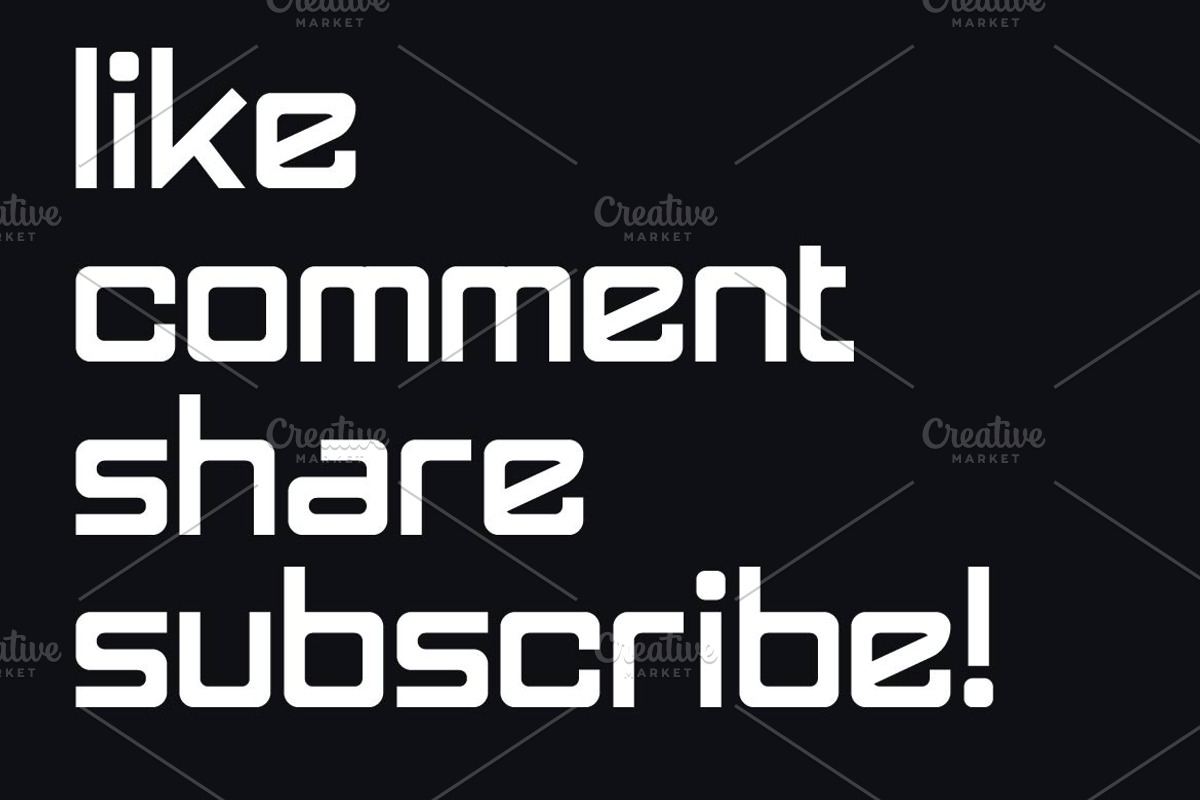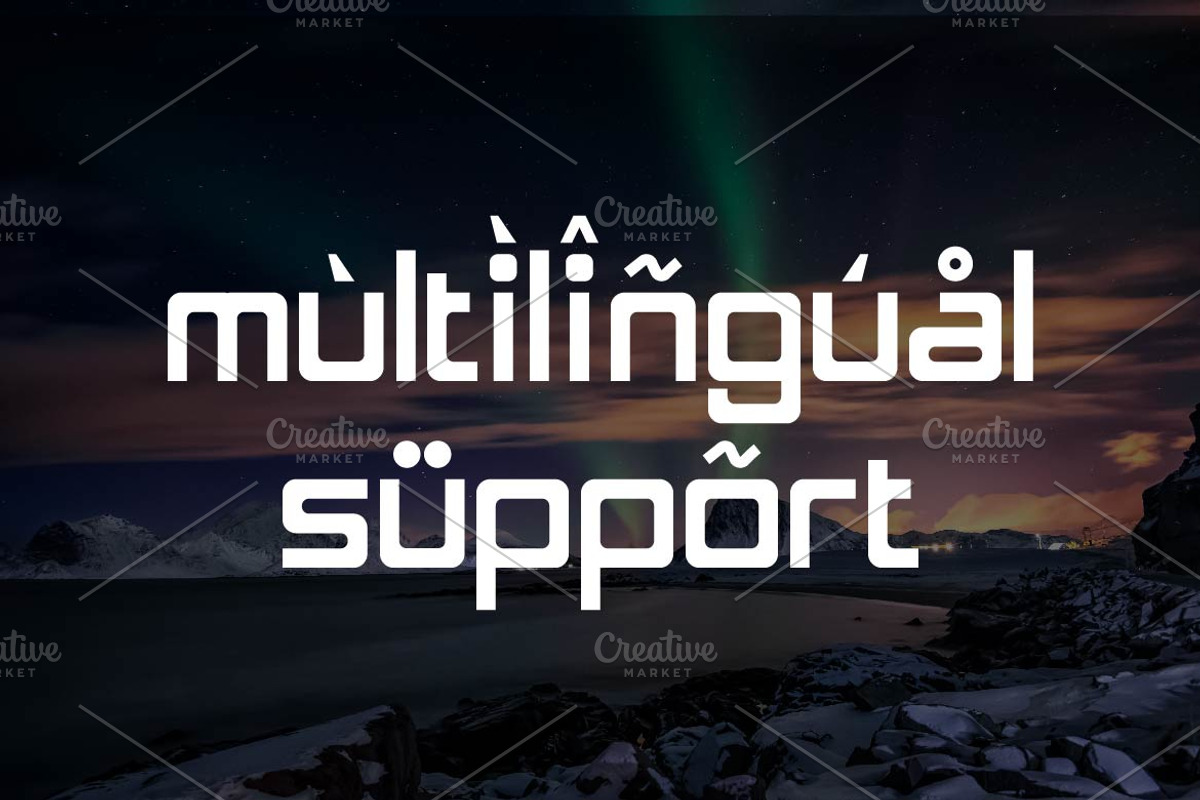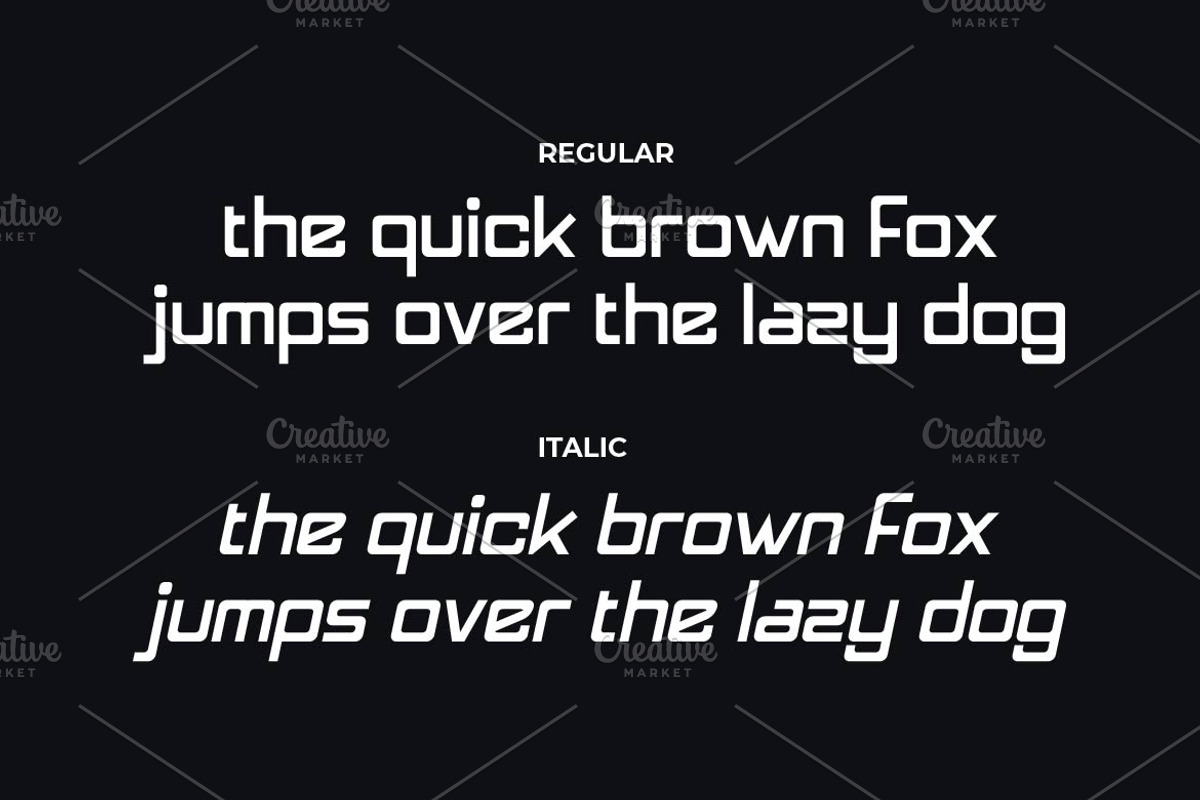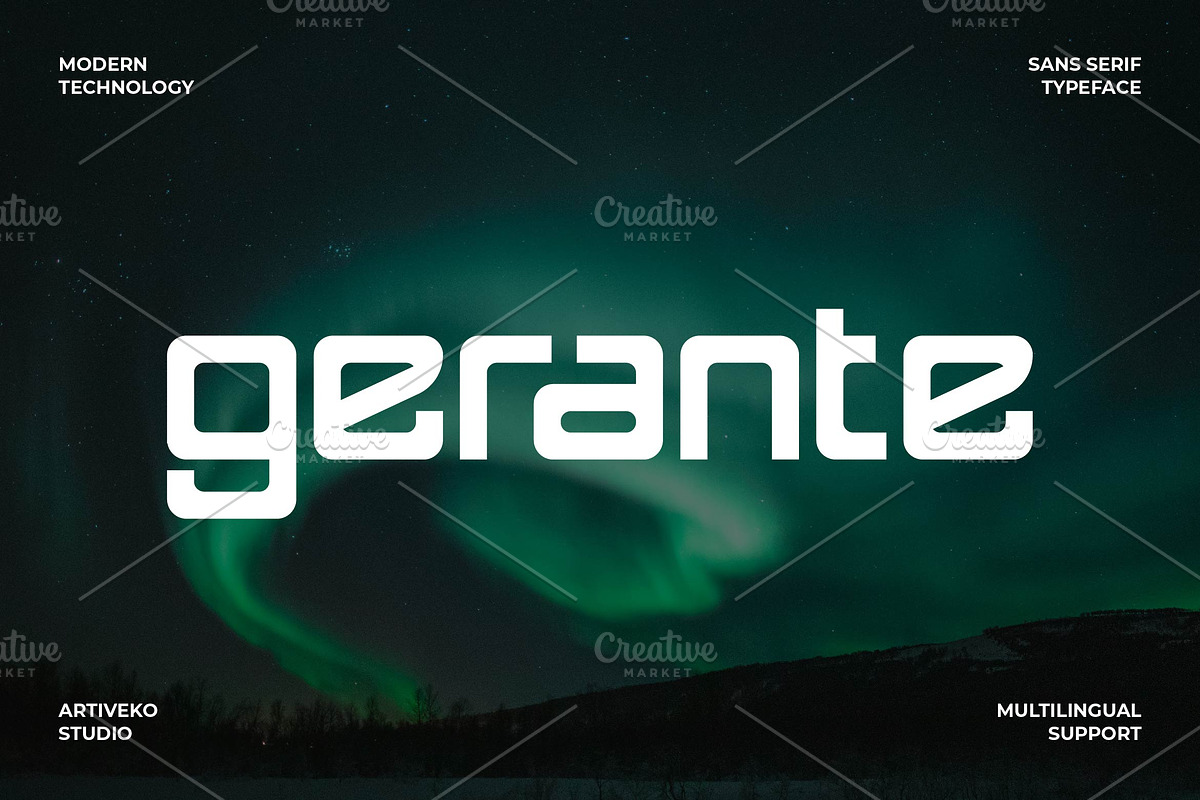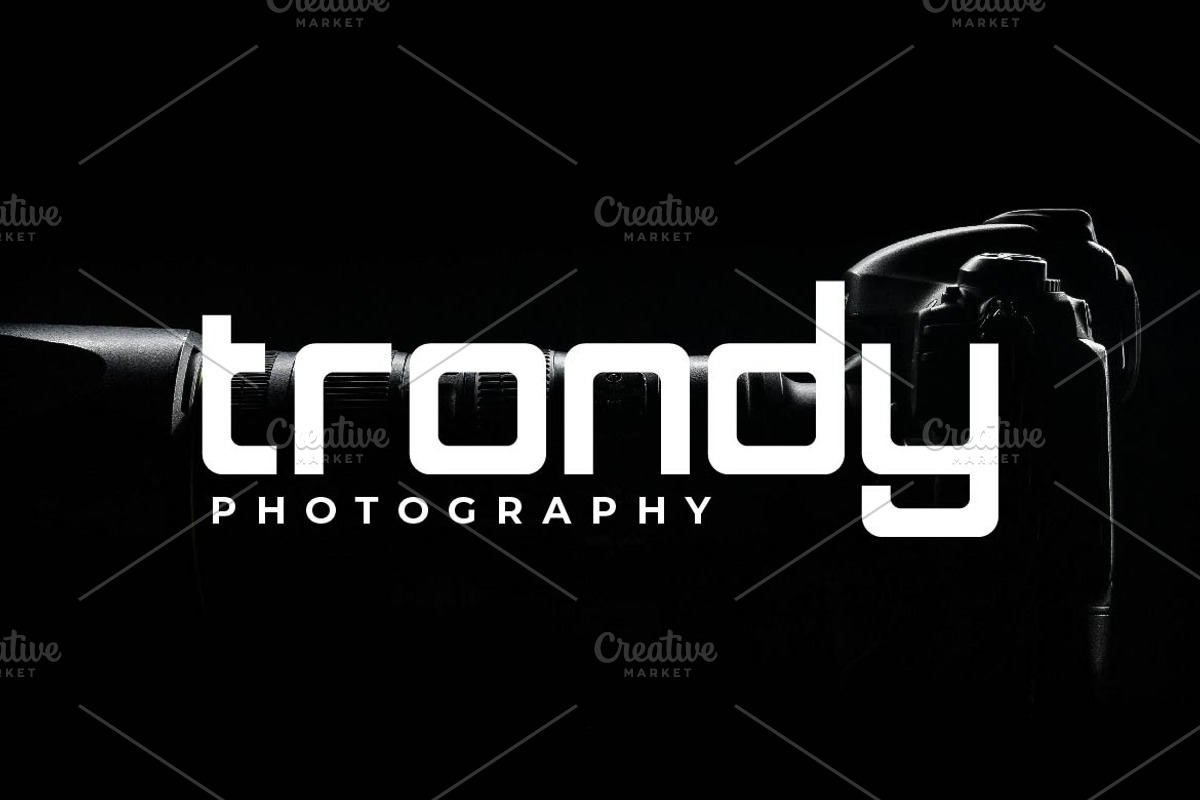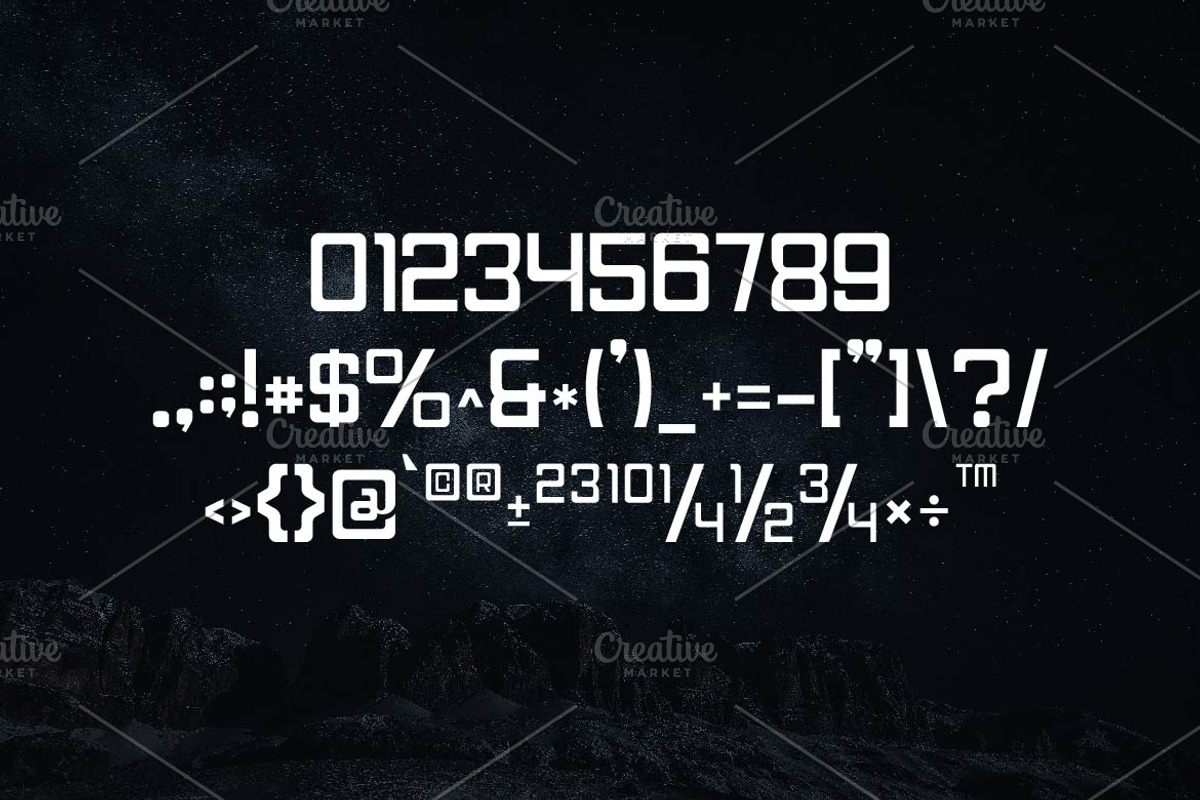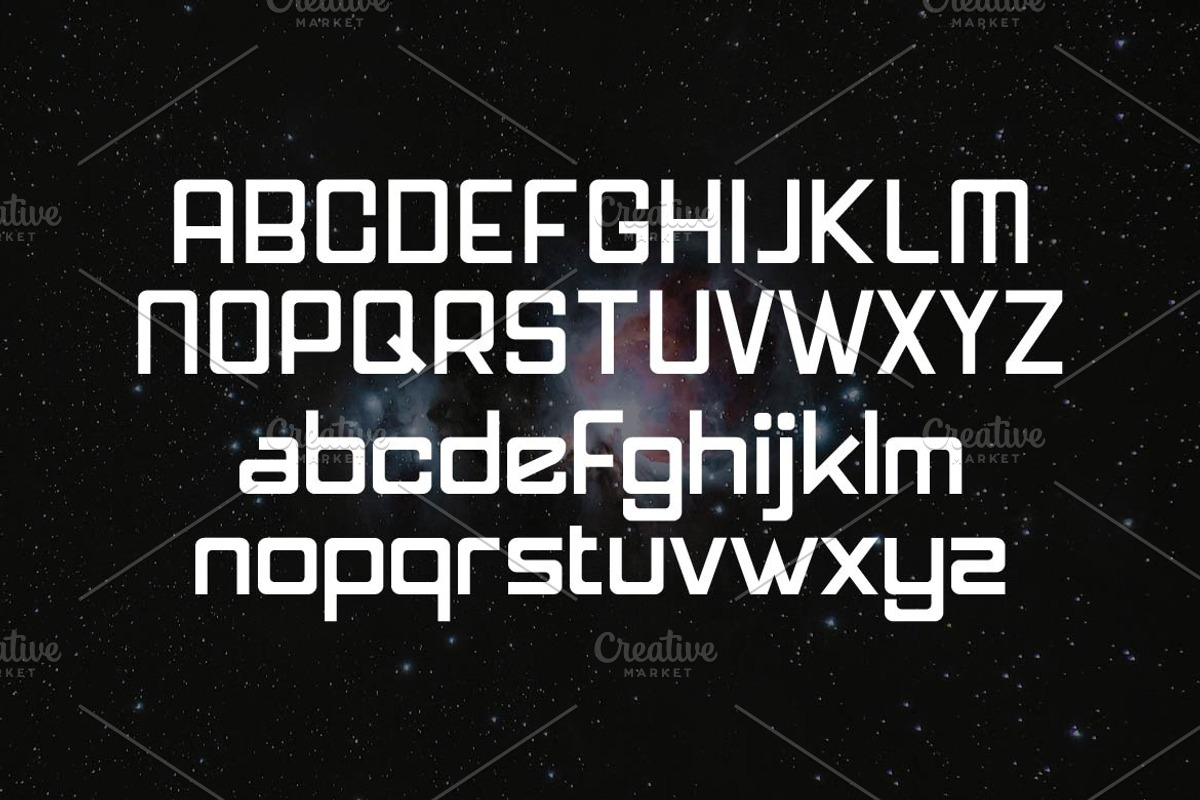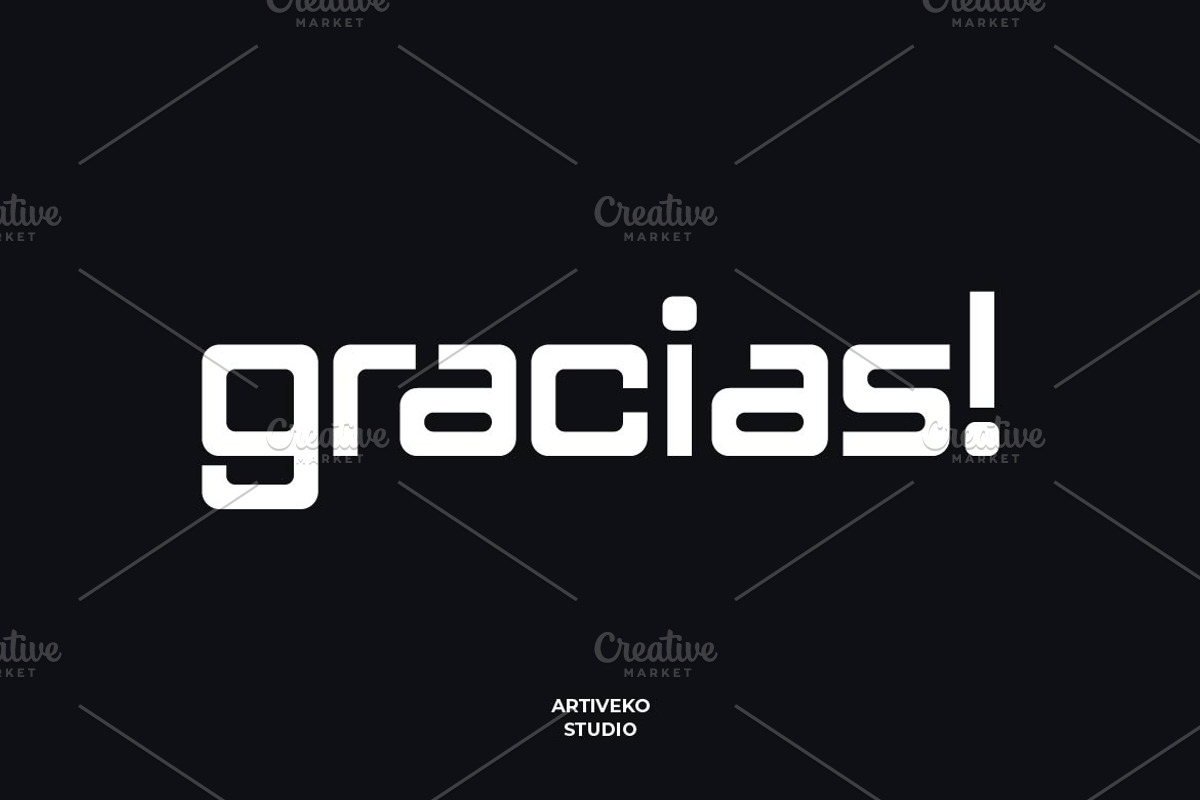
Gerante Technology Font
Gerante is a sleek modern technology font by Iwan Alwan, featuring futuristic letterforms with a clean, high-tech aesthetic. Perfect for tech branding, UI/UX design, gaming, and sci-fi projects, Gerante combines precision with innovation to create a cutting-edge look. With multilingual support, ligatures, and alternates, this versatile typeface ensures readability and style, making it an excellent choice for designs that embrace modernity and technology.